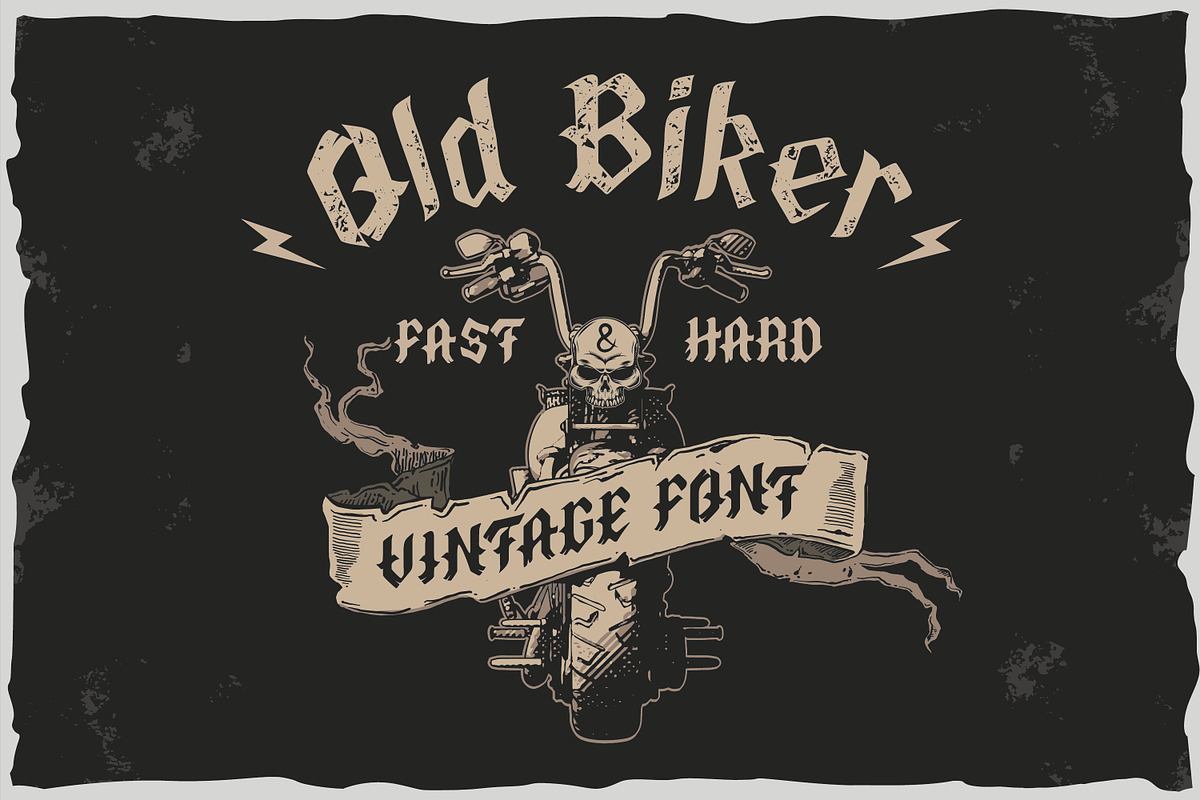
Old Biker - Gothic Style Vintage Label Font Free Download is a bold, rugged typeface built for rebellion, heritage, and timeless cool. Inspired by biker culture, gothic lettering, and old-school tattoo art, this font is perfect for vintage logos, whiskey labels, motorcycle club branding, and apparel that rides hard and speaks loud.
Old Biker - Gothic Style Vintage Label Font Free Download features sharp edges, ornate details, and a weathered look that adds instant character. Whether you're creating retro signage, garage-themed merch, or heavy metal album covers, this font roars with attitude and authenticity.
It thrives in gritty textures, dark palettes, and bold compositions. Pair it with skulls, flames, or classic biker illustrations for the full outlaw aesthetic.
Rev up your design engine with Old Biker—because some messages aren’t whispered… they growl.